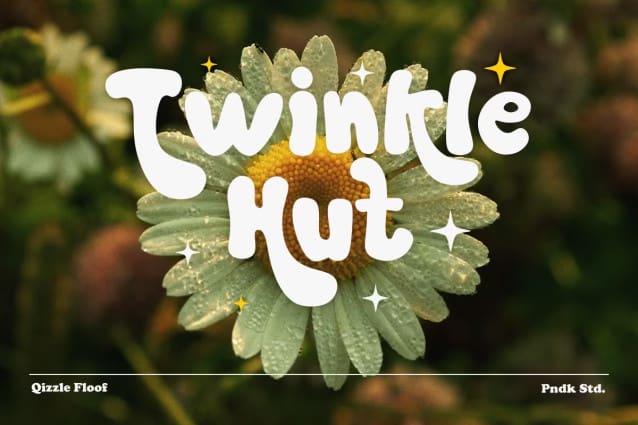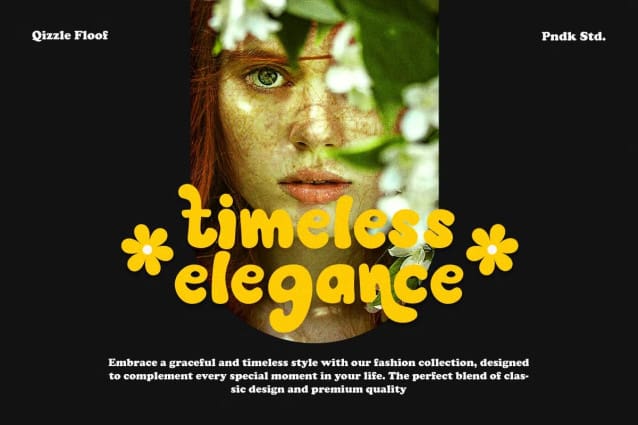
Qizzle Floof Font
Qizzle Floof Font, a playful and bubbly typeface that adds personality to your designs! Featuring 2 styles: Regular and Outline, Qizzle Floof brings a groovy and organic feel with its hand-drawn bubble letterforms and smooth yet quirky edges. This font is perfect for creating eye-catching designs with a human touch.
Whether you’re designing posters, stickers, quotes, branding, or packaging, Qizzle Floof fits right in! What makes it even more exciting is its unique uppercase and lowercase letterforms that you can mix and match in the same word for a truly handmade look.
Qizzle Floof also comes with a generous collection of alternates, icons, and underlines that can be accessed from the glyphs panel in your favorite design software. Plus, it offers full multi-language support, making it versatile for all your creative needs.